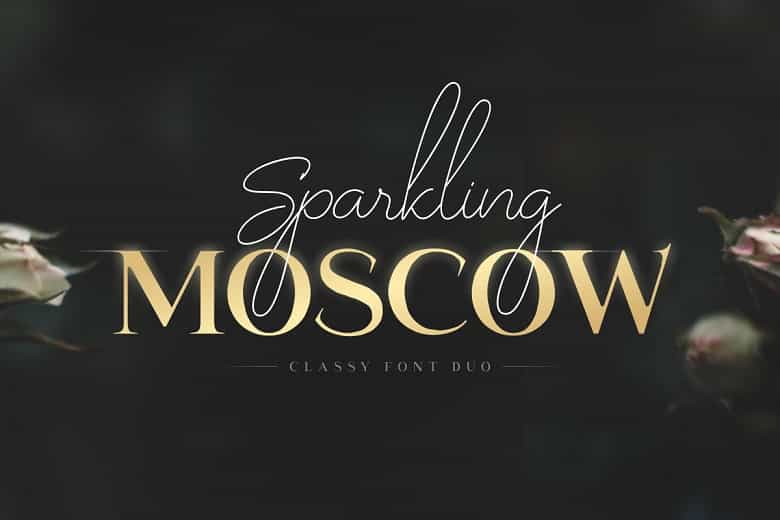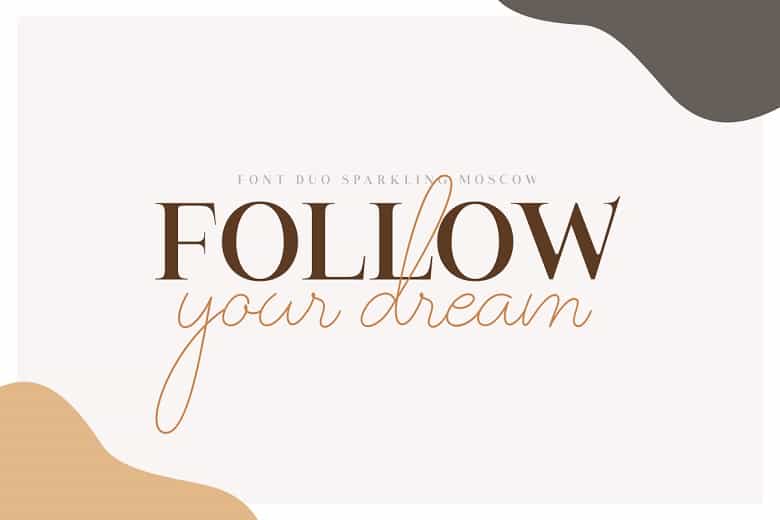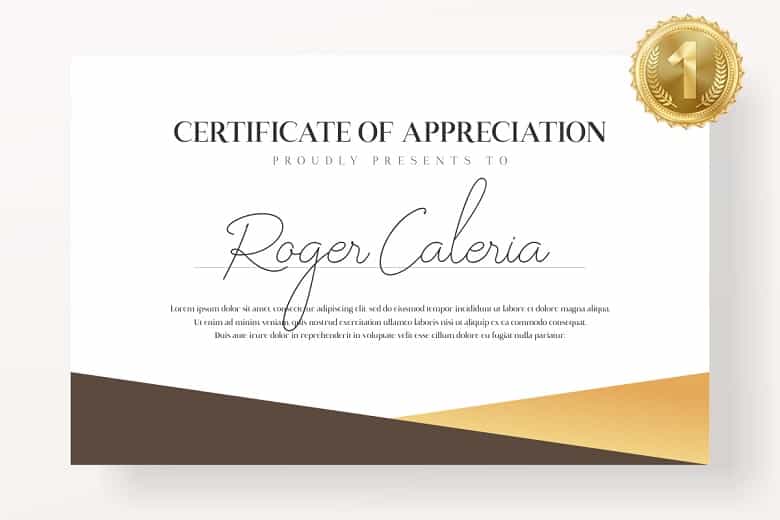
Sparkling Moscow is a elegant font duo combination which is good for a brand, a sign, and any other purpose design. In our practice as a graphic designer who works for many companies, we are always asked to come up with a classy design.